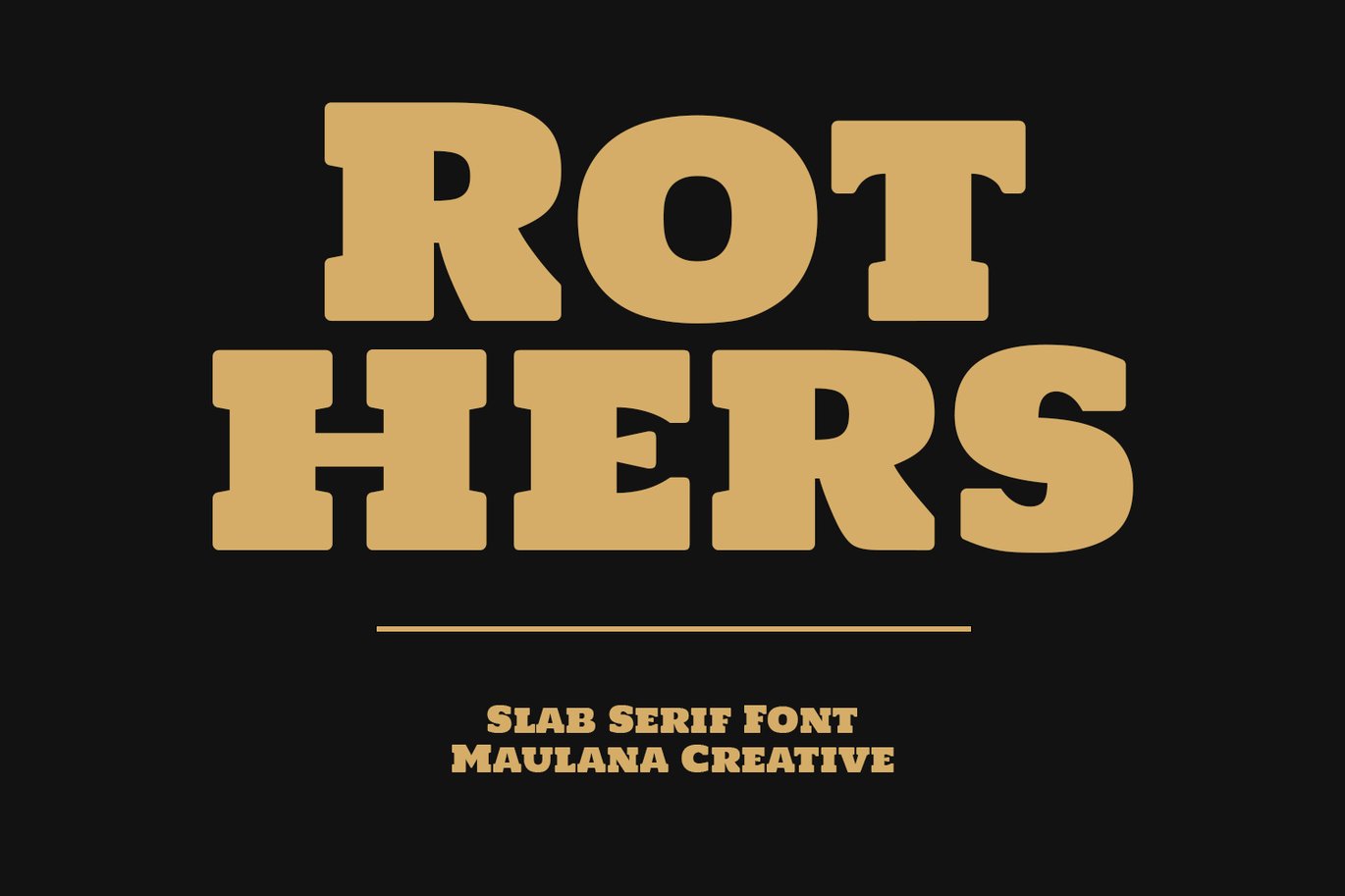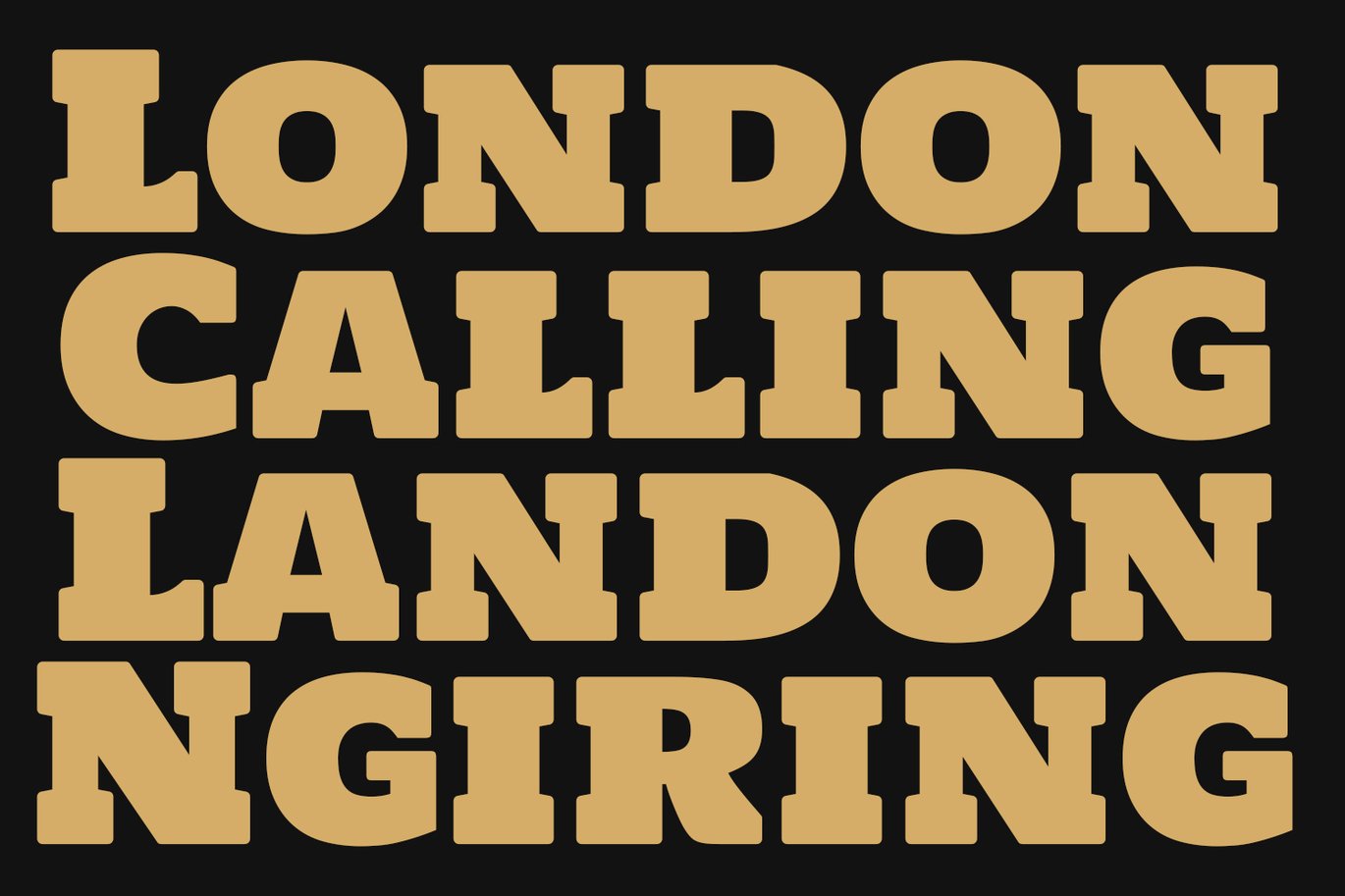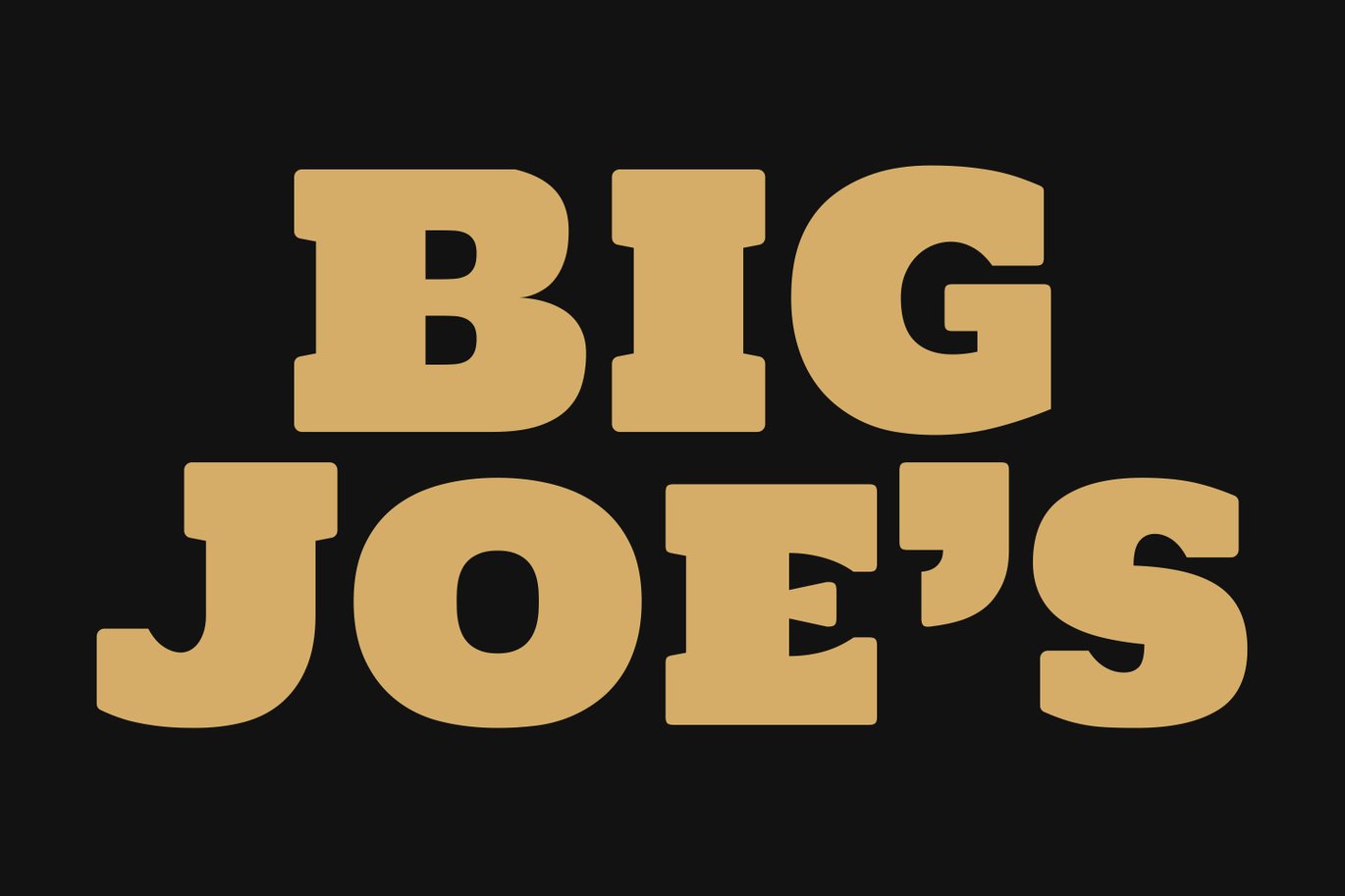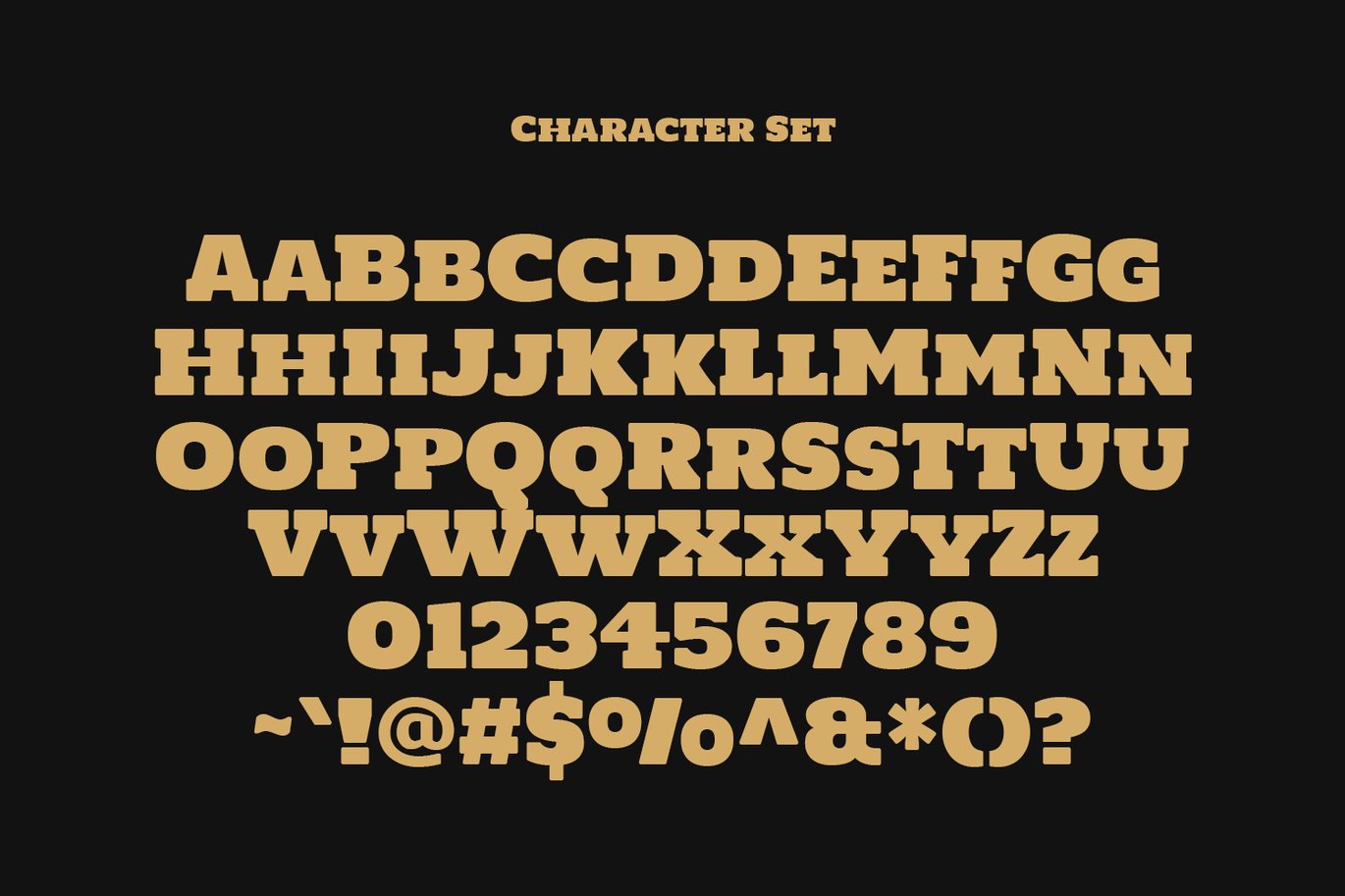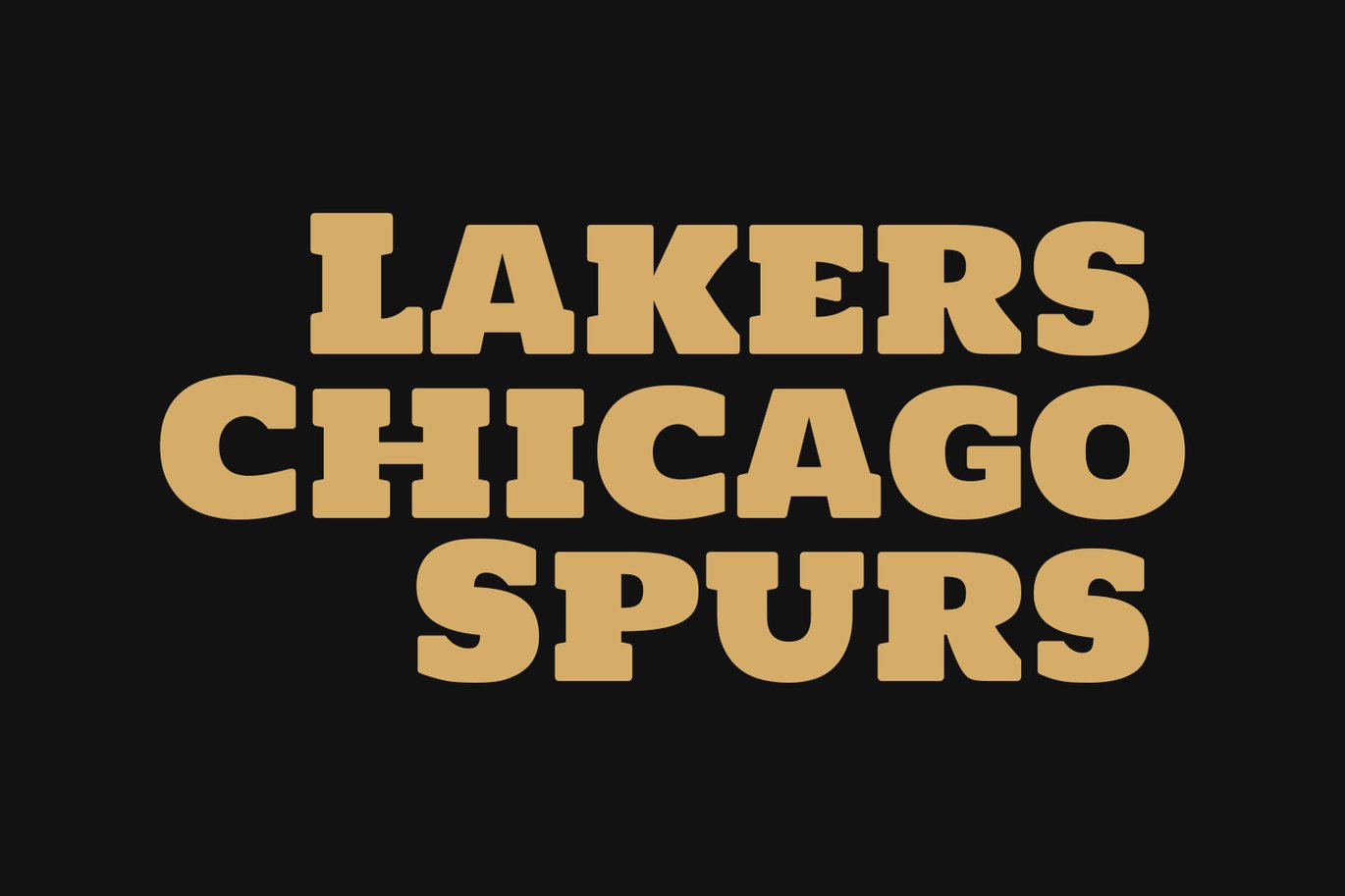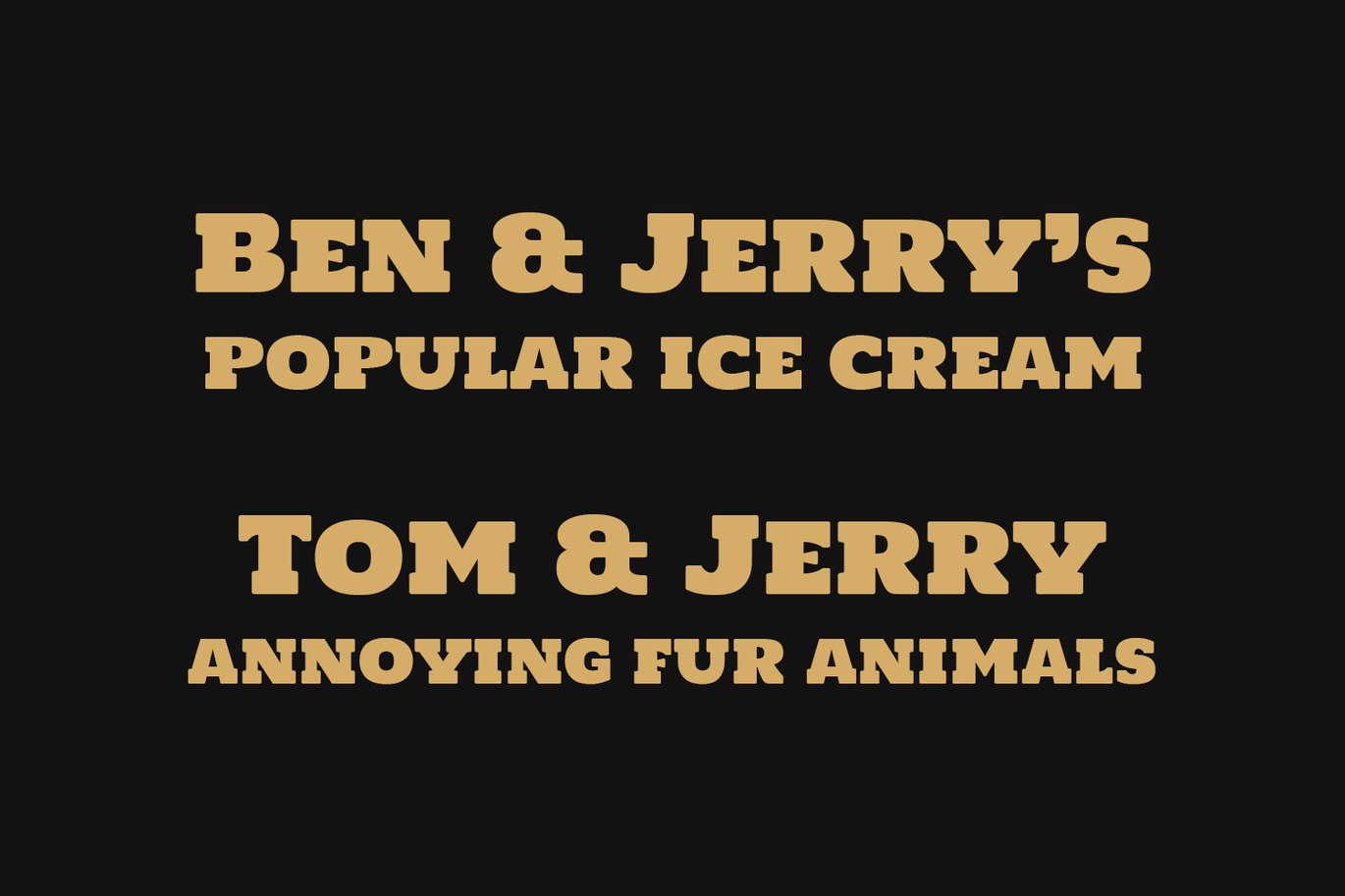
Rothers Slab Serif Display Font
Rothers is a slab serif display font. Bold stroke, fun character with a bit of ligatures and alternates. To give you an extra creative work. Rothers font support multilingual more than 100+ language. This font is good for logo design, Social media, Movie Titles, Books Titles, a short text even a long text letter and good for your secondary text font with script or serif. Make a stunning work with Rothers font.